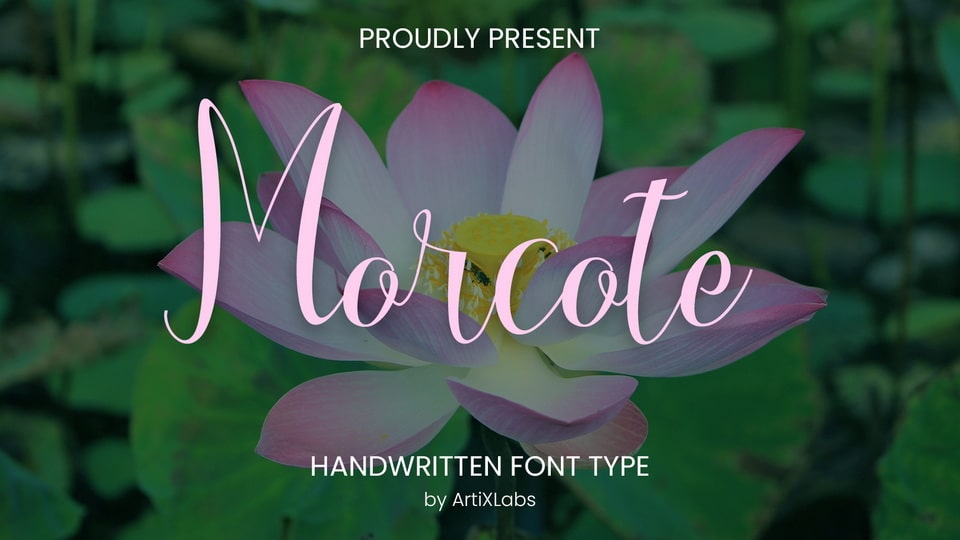
Download Introducing Morcote – a playful and cute handwritten typeface. This font contains elegance, handwriting, flourish, creative, professional and unique concept.